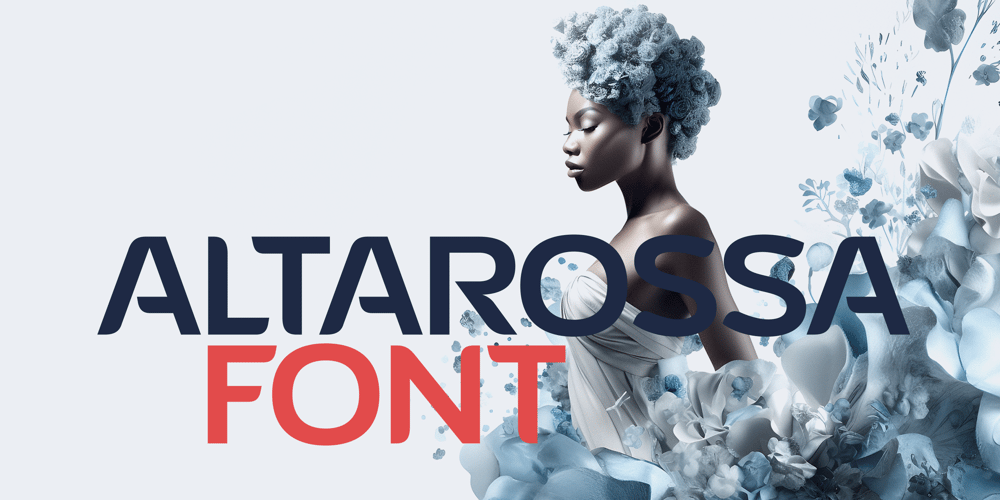
Altarossa
Altarossa font
Altarossa Font Family was designed by Alexey Popov and published by Popskraft. Altarossa contains 10 styles and family package options. Hey there, check out Altarossa! It’s a font that blends classic elegance with the bright plasticity of nature. This natural fusion gives Altarossa a captivating charm that’s both tough and tender, young and chic. The rounded corners and curvy lines of Altarossa will remind you of the fresh and light vibes of nature, perfect for designs that need a touch of natural beauty. This font is well-balanced both for headings and typography and for typing large text blocks.In addition to its captivating charm, Altarossa is the perfect font for a variety of businesses and activities. If you’re in the fashion game, Altarossa’s stylish yet natural vibe will elevate your brand to the next level. For sports and fitness brands, Altarossa’s strong and flexible nature will perfectly represent your message. And for weddings, luxury brands, commerce, hobbies, and more, Altarossa brings a touch of elegance and sophistication that’ll make your designs pop. This font is well-balanced both for headings and typography and for typing large text blocks. With its versatile and adaptable nature, Altarossa works with pretty much any project you throw its way. Don’t sleep on Altarossa, it’s a font that’s too awesome to pass up!